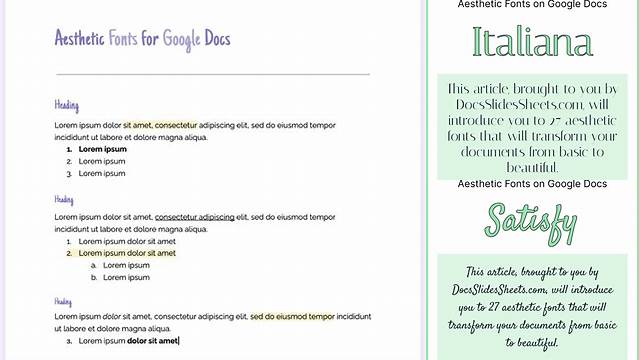
Aesthetic Fonts For Google Docs: A Comprehensive Guide
Hey guys! Ever feel like your Google Docs are looking a little...blah? You're not alone! Choosing the right font can make a huge difference in how your document looks and feels. Whether you're working on a resume, a school project, or just a fun creative writing piece, the font you use sets the tone. So, you're probably wondering, "What are some aesthetic fonts on Google Docs?" Well, you've come to the right place! Let's dive into a treasure trove of beautiful fonts that will transform your documents from drab to fab. We'll explore a wide range of options, from elegant serifs to modern sans-serifs, and even some fun display fonts to spice things up. Get ready to unleash your inner font enthusiast!
1. Understanding Aesthetic Fonts in Google Docs
When we talk about aesthetic fonts, we're really talking about fonts that have a certain visual appeal and can evoke a particular mood or feeling. These aren't your run-of-the-mill Times New Roman or Arial β although those fonts have their place, aesthetic fonts are about adding a touch of personality and style to your work. In Google Docs, aesthetic fonts can make your documents stand out, whether you're aiming for a professional, creative, or playful vibe. Think about it: the font you use can influence how your audience perceives your message. A handwritten-style font might be perfect for a friendly letter, while a sleek sans-serif might be better suited for a business report. So, how do you choose the right one? Well, let's explore the different categories of aesthetic fonts and how they can enhance your Google Docs. We'll look at everything from the classic serifs that exude elegance to the modern sans-serifs that scream simplicity and everything in between. Remember, the key is to find a font that not only looks good but also aligns with the purpose and tone of your document. Letβs start our journey into the world of aesthetic fonts and discover the perfect typefaces to make your Google Docs shine. The possibilities are endless, and the impact is significant. Choosing the right font is an art, and with a little guidance, you can become a master of this art in your own right.
2. Serif Fonts: Classic and Elegant Choices
Serif fonts are often described as classic and elegant, and for good reason! They have these little decorative strokes, called serifs, at the end of each letter, which gives them a sophisticated and traditional feel. Think of them as the black-tie attire of the font world. When you're looking for aesthetic fonts that convey authority, professionalism, or a touch of old-world charm, serif fonts are your go-to. In Google Docs, using a serif font can instantly elevate your document, making it look more polished and refined. But with so many serif fonts to choose from, how do you pick the right one? Some popular choices include Georgia, which is known for its readability, and Merriweather, which has a slightly more modern feel. Then there's Playfair Display, a beautiful serif that's perfect for headings and titles. Each serif font has its own personality, so itβs worth experimenting to find the one that best suits your needs. Remember, the goal is to choose a font that enhances your message, not distracts from it. When used thoughtfully, serif fonts can add a timeless elegance to your Google Docs, making them a pleasure to read and a statement of your attention to detail. Choosing between these aesthetic fonts can be tricky, but understanding the nuances of each will help you make the best decision.
3. Sans-Serif Fonts: Modern and Minimalist
If serif fonts are the classic choice, then sans-serif fonts are their modern, minimalist cousins. Sans-serif fonts, as the name suggests, don't have those little decorative strokes (serifs) at the end of the letters. This gives them a clean, contemporary look that's perfect for conveying a sense of simplicity and clarity. For those wondering, "What are some aesthetic fonts on Google Docs that are modern?" the answer lies heavily within the sans-serif family. These fonts are often used in websites and digital interfaces because they're highly readable on screens. In Google Docs, sans-serif fonts can be a great choice for everything from resumes to reports, especially if you want to project a forward-thinking, no-fuss image. Some popular sans-serif fonts available in Google Docs include Arial, Helvetica, and Open Sans. But if you're looking for something a little more unique, check out Montserrat, Lato, or Roboto β these fonts have a bit more personality while still maintaining that clean, modern aesthetic. The beauty of sans-serif fonts lies in their versatility. They work well in a variety of contexts and can be easily paired with other fonts. Whether you're aiming for a sleek, corporate look or a more casual, contemporary vibe, a well-chosen sans-serif font can help you achieve your desired aesthetic. These aesthetic fonts are an essential tool for creating visually appealing and readable documents.
4. Display Fonts: Creative and Eye-Catching
Now, let's talk about the fun stuff! Display fonts are the wildcards of the font world β they're designed to grab attention and make a statement. These fonts often have unique shapes, decorative elements, and a whole lot of personality. If you're looking to add some flair to your Google Docs, display fonts are the way to go. However, a word of caution: display fonts are best used sparingly. They're perfect for headings, titles, and short bursts of text, but they can be overwhelming if used for large blocks of body text. When it comes to answering the question, βWhat are some aesthetic fonts on Google Docs that are creative?β, display fonts are the stars of the show. Think of them as the sprinkles on your sundae β a little goes a long way! Google Docs has a surprisingly good selection of display fonts, from script fonts that mimic handwriting to bold, geometric fonts that demand attention. Some interesting options include Pacifico, a casual script font, and Lobster, a bold, retro-inspired font. For a more modern look, try Oswald or Bebas Neue. When choosing a display font, consider the overall tone of your document. Are you going for playful and whimsical, or bold and dramatic? The font you choose should reflect the message you're trying to convey. With the right display font, your Google Docs will be anything but boring. These aesthetic fonts offer a chance to truly express your creativity.
5. Script Fonts: Elegant and Personal Touches
For those seeking aesthetic fonts that exude elegance and a personal touch, script fonts are an excellent choice. These fonts mimic the fluidity of handwriting, adding a touch of sophistication and warmth to your Google Docs. Think of them as the handwritten note in a digital world. Script fonts are perfect for invitations, thank-you notes, and any document where you want to create a personal connection with your reader. However, like display fonts, script fonts should be used judiciously. They can be difficult to read in large blocks of text, so it's best to reserve them for headings, titles, or short phrases. Google Docs offers a variety of script fonts, each with its own unique personality. Some popular options include Dancing Script, a playful and whimsical font, and Great Vibes, a more formal and elegant script. For a modern twist, check out Pacifico or Lobster Two, which have a more casual feel. When choosing a script font, consider the occasion and the message you want to convey. A formal script might be perfect for a wedding invitation, while a more casual script could be ideal for a thank-you note to a friend. With the right script font, you can add a touch of personality and charm to your Google Docs, making them truly memorable. Answering, βWhat are some aesthetic fonts on Google Docs for a personal touch?β often leads to the beautiful world of script fonts.
6. Monospace Fonts: Technical and Uniform
Monospace fonts are a bit of a niche category, but they can be incredibly useful in certain situations. What sets monospace fonts apart is that each character takes up the same amount of horizontal space. This gives them a uniform, almost typewriter-like appearance. While they might not be the first choice for a visually stunning document, monospace fonts are ideal for displaying code, aligning columns of text, or creating a technical or retro vibe. When exploring, "What are some aesthetic fonts on Google Docs that offer a technical feel?" monospace options are worth considering. In Google Docs, some common monospace fonts include Courier New and Consolas. But if you're looking for something a little different, try Roboto Mono or Fira Mono, which have a more modern and readable design. Monospace fonts aren't for every project, but when you need that consistent, technical look, they're the perfect tool. Think of them as the workhorses of the font world β reliable, consistent, and perfect for specific tasks. These aesthetic fonts have a unique place in the design landscape.
7. Finding More Fonts in Google Docs
So, you've explored the basic font categories, but what if you're still looking for something more unique? The good news is that Google Docs has a hidden treasure trove of fonts just waiting to be discovered! To access these hidden gems, simply click on the font dropdown menu in Google Docs and select "More fonts." This will open a font selection window where you can browse hundreds of additional fonts, filter them by category (serif, sans-serif, display, etc.), and even search for specific fonts by name. This is where answering, βWhat are some aesthetic fonts on Google Docs that I havenβt seen before?β becomes exciting. This is a fantastic way to expand your font palette and find the perfect typeface for your project. The "More fonts" feature is like a secret door to a world of typographic possibilities. You can spend hours exploring different fonts, experimenting with combinations, and discovering hidden gems that you never knew existed. So, if you're feeling adventurous, dive in and see what you can find! This feature is a game-changer for anyone serious about typography in their documents. These additional aesthetic fonts can truly make your documents stand out.
8. Pairing Fonts for Visual Harmony
Choosing a single aesthetic font is important, but sometimes the real magic happens when you pair fonts together. Font pairing is the art of combining two or more fonts in a way that creates visual harmony and enhances the overall look of your document. Think of it as creating a symphony of typefaces, where each font plays its part in the overall composition. But how do you choose fonts that work well together? A good rule of thumb is to pair fonts that have contrasting characteristics. For example, you might pair a bold serif font for headings with a clean sans-serif font for body text. This creates a visual hierarchy and makes your document more readable. Answering, βWhat are some aesthetic fonts on Google Docs that pair well together?β is key to professional design. Another approach is to use fonts from the same font family but with different weights or styles. For example, you could use a light weight of a font for body text and a bold weight for headings. This creates a cohesive look while still providing visual contrast. Experimentation is key when it comes to font pairing. Try different combinations and see what works best for your project. There are also many online resources and tools that can help you find font pairings that are known to work well together. With a little practice, you'll be creating beautiful and harmonious font pairings in no time. These carefully chosen combinations of aesthetic fonts can elevate your design to a new level.
9. Using Fonts to Convey Different Moods
The aesthetic fonts you choose can have a powerful impact on the mood and tone of your document. Fonts aren't just about how text looks; they also communicate emotions and attitudes. Think about it: a playful, handwritten font might be perfect for a birthday card, but it would be completely inappropriate for a legal document. Understanding how fonts can convey different moods is crucial for effective communication. When considering, βWhat are some aesthetic fonts on Google Docs that evoke specific feelings?β, you're entering the realm of visual psychology. Serif fonts, with their classic and elegant appearance, often convey a sense of authority, tradition, and professionalism. They're a good choice for formal documents, academic papers, and anything where you want to project credibility. Sans-serif fonts, on the other hand, tend to feel more modern, clean, and minimalist. They're a great option for websites, resumes, and documents that need to feel contemporary and approachable. Display fonts, with their unique shapes and decorative elements, can convey a wide range of moods, from playful and whimsical to bold and dramatic. Script fonts, which mimic handwriting, add a personal and elegant touch. When choosing a font, consider the message you want to convey and the audience you're trying to reach. The right font can help you connect with your readers on an emotional level, making your message more impactful. Matching the mood is crucial when selecting aesthetic fonts.
10. Readability: The Key Factor in Font Choice
No matter how beautiful a font is, if it's not readable, it's not a good choice for your document. Readability is the most important factor to consider when selecting fonts, especially for body text. After all, you want your readers to be able to easily understand your message, not struggle to decipher your words. So, as you ask, βWhat are some aesthetic fonts on Google Docs that are also easy to read?β, remember that readability trumps all. A font's readability depends on several factors, including its size, spacing, and overall design. Fonts with clear, simple shapes and ample spacing between letters and words tend to be the most readable. Serif fonts are often considered more readable for long blocks of text because the serifs help guide the eye along the lines. However, some sans-serif fonts are also highly readable, especially those designed specifically for on-screen reading. Display fonts and script fonts, while visually appealing, are generally less readable than serif and sans-serif fonts. That's why they're best reserved for headings, titles, and short bursts of text. When in doubt, choose a font that's known for its readability, such as Arial, Times New Roman, Open Sans, or Lato. Your readers will thank you for it! Prioritizing readability ensures your chosen aesthetic fonts are functional as well as beautiful.
11. Font Size and Spacing for Optimal Viewing
Choosing the right aesthetic font is just the first step; you also need to consider the font size and spacing to ensure optimal viewing. Even the most beautiful font can become illegible if it's too small or too cramped. Font size is measured in points (pt), and the ideal font size for body text is typically between 10 and 12 points. However, this can vary depending on the font itself and the overall design of your document. When asking, βWhat are some aesthetic fonts on Google Docs that look good in various sizes?β, youβre touching on an important aspect of typography. Headings and titles should be larger than body text to create a visual hierarchy. A good rule of thumb is to make your headings 14 to 18 points and your main title even larger, perhaps 24 points or more. Spacing is just as important as font size. There are two types of spacing to consider: line spacing (the space between lines of text) and letter spacing (the space between individual letters). Adequate line spacing makes text easier to read by preventing the lines from feeling too crowded. A line spacing of 1.15 or 1.5 is generally recommended for body text. Letter spacing can be adjusted to improve the overall appearance of a font. Sometimes, increasing the letter spacing slightly can make a font feel more airy and readable. Experiment with different font sizes and spacing settings to find what works best for your document. These adjustments are key to enhancing the visual impact of aesthetic fonts.
12. Color Considerations with Aesthetic Fonts
While the shape and style of a font are crucial, color plays a significant role in how it's perceived. The color you choose for your text can affect readability, contrast, and the overall aesthetic of your document. So, when you think about, βWhat are some aesthetic fonts on Google Docs and how should I color them?β, you're delving into the world of color theory in typography. The most common choice for body text is black, as it provides the highest contrast against a white background. However, don't be afraid to experiment with other colors, especially for headings and titles. Dark shades of gray, blue, or green can add a touch of sophistication without sacrificing readability. When choosing colors, consider the overall tone of your document. Warm colors like red, orange, and yellow can evoke feelings of energy and excitement, while cool colors like blue, green, and purple tend to feel more calming and professional. Contrast is key when it comes to color. Make sure there's enough contrast between your text color and your background color to ensure readability. Light text on a dark background or dark text on a light background generally works well. Avoid using colors that are too similar, as this can make your text difficult to read. Color should enhance, not detract from, the aesthetic fonts you've chosen.
13. Bold, Italics, and Underlines: Strategic Font Emphasis
Bold, italics, and underlines are powerful tools for adding emphasis to your text and creating visual interest. However, they should be used strategically and sparingly. Overusing these formatting options can make your document look cluttered and unprofessional. So, in considering, βWhat are some aesthetic fonts on Google Docs that work well with emphasis?β, think about how these tools can complement your choices. Bold is great for highlighting key words, phrases, or headings. It adds weight and prominence to your text, drawing the reader's eye to the most important information. Italics are often used for emphasis, but they can also be used for citations, foreign words, or book titles. Italics have a softer, more subtle effect than bold, but they can still be effective for adding emphasis. Underlines are the most controversial of these formatting options. While they can be used for emphasis, they're often associated with hyperlinks and can make your text look dated. If you're going to use underlines, do so sparingly and consider using them in conjunction with other formatting options, such as bold or italics. The key to using bold, italics, and underlines effectively is to use them consistently and purposefully. Think about how these options can enhance your message and guide your reader through your document. When used thoughtfully, these formatting tools can elevate the impact of your aesthetic fonts.
14. Kerning and Tracking: Fine-Tuning Font Appearance
Kerning and tracking are two advanced typographic techniques that can help you fine-tune the appearance of your fonts and improve readability. Kerning refers to the spacing between individual letters, while tracking refers to the overall spacing between all the letters in a word or line of text. These subtle adjustments can make a big difference in the visual appeal of your document. When exploring, βWhat are some aesthetic fonts on Google Docs and how can I perfect their spacing?β, you're delving into the nuances of typography. Kerning is particularly important for fonts with unusual shapes or letter combinations. By adjusting the kerning, you can create a more balanced and harmonious appearance. For example, you might need to reduce the space between a capital "W" and a lowercase "a" to prevent them from looking too far apart. Tracking is useful for adjusting the overall density of text. If your text looks too crowded, you can increase the tracking to add more space between the letters. Conversely, if your text looks too sparse, you can decrease the tracking to make it feel more compact. Google Docs doesn't offer advanced kerning and tracking controls, but you can still make some basic adjustments by using the "Custom spacing" option in the font menu. Experiment with different kerning and tracking settings to see how they affect the appearance of your aesthetic fonts. These fine-tuning techniques are the secrets to truly polished typography.
15. Avoiding Common Font Mistakes
Choosing the right aesthetic fonts can be a game-changer for your Google Docs, but it's also easy to make mistakes that detract from your message. Let's talk about some common font faux pas and how to avoid them. One of the biggest mistakes is using too many fonts in a single document. Sticking to two or three fonts is generally a good rule of thumb. More than that can make your document look cluttered and unprofessional. As you consider, βWhat are some aesthetic fonts on Google Docs that I can combine effectively?β, simplicity is key. Another common mistake is choosing fonts that are difficult to read. Fancy fonts might look cool, but if your readers can't easily decipher your words, they'll quickly lose interest. Readability should always be a top priority. Overusing bold, italics, and underlines is another pitfall. These formatting options are great for emphasis, but too much emphasis is no emphasis at all. Use them sparingly and purposefully. Inconsistent font sizes and styles can also make your document look unprofessional. Make sure your headings, subheadings, and body text have consistent formatting throughout. Finally, avoid using clichΓ© fonts like Comic Sans or Papyrus unless you have a very specific reason to do so. These fonts are widely considered unprofessional and should be avoided in most contexts. By avoiding these common mistakes, you can ensure that your chosen aesthetic fonts enhance your document, rather than detracting from it.
16. Aesthetic Fonts for Resumes
When it comes to resumes, choosing the right aesthetic fonts can make a significant difference in how you're perceived by potential employers. Your resume is your first impression, so you want it to look professional, polished, and easy to read. So, when thinking, βWhat are some aesthetic fonts on Google Docs for a resume?β, think about striking a balance between style and readability. The best fonts for resumes are typically clean and professional, with a focus on readability. Serif fonts like Georgia, Garamond, and Times New Roman are classic choices that convey a sense of authority and tradition. Sans-serif fonts like Arial, Helvetica, and Calibri are also good options, as they offer a more modern and minimalist look. Avoid using overly fancy or decorative fonts, as these can be difficult to read and may make your resume look unprofessional. Stick to one or two fonts at most, and use them consistently throughout your resume. Pay attention to font size and spacing as well. Your body text should be large enough to read easily (10-12 points is a good range), and your headings should be slightly larger to create a visual hierarchy. With the right aesthetic fonts, your resume will stand out for all the right reasons.
17. Aesthetic Fonts for Presentations
Presentations are all about visual communication, so choosing the right aesthetic fonts is crucial for keeping your audience engaged. You want fonts that are clear, readable, and visually appealing, both on screen and in print. So, as you ponder, βWhat are some aesthetic fonts on Google Docs for a presentation?β, consider the dynamics of a visual medium. The fonts you use for your presentation should be large enough to read easily from a distance. A good rule of thumb is to use a minimum font size of 24 points for body text and 36 points or larger for headings. Sans-serif fonts like Arial, Helvetica, and Open Sans are generally a good choice for presentations, as they're highly readable on screens. Serif fonts can also work well, but they may not be as clear at smaller sizes. Limit yourself to two or three fonts at most, and use them consistently throughout your presentation. Consider using different font weights (bold, regular, light) to create visual interest and emphasize key points. Color is also important in presentations. Choose colors that contrast well with your background and that are easy on the eyes. The right aesthetic fonts will make your presentation visually compelling and easy to follow.
18. Aesthetic Fonts for Reports
When creating reports, the goal is to present information clearly and professionally. The aesthetic fonts you choose should reflect this goal, prioritizing readability and a clean, uncluttered look. As you deliberate, βWhat are some aesthetic fonts on Google Docs for a report?β, think about conveying professionalism and clarity. Serif fonts like Times New Roman, Georgia, and Cambria are often a good choice for reports, as they convey a sense of authority and tradition. Sans-serif fonts like Arial, Helvetica, and Calibri can also work well, especially for shorter reports or reports with a more modern feel. Stick to one or two fonts at most, and use them consistently throughout your report. Use different font weights (bold, regular, light) and sizes to create a visual hierarchy and guide your reader through the information. Pay attention to spacing as well. Adequate line spacing and paragraph spacing will make your report easier to read. Avoid using overly fancy or decorative fonts, as these can distract from the content and make your report look unprofessional. With the right aesthetic fonts, your report will convey a sense of competence and attention to detail.
19. Aesthetic Fonts for Creative Writing
Creative writing offers a unique opportunity to experiment with aesthetic fonts and express your personal style. Unlike more formal documents, creative writing pieces can benefit from fonts that add personality and flair. So, when considering, βWhat are some aesthetic fonts on Google Docs for creative writing?β, think about fonts that enhance the tone and mood of your piece. Display fonts and script fonts can be a great choice for creative writing, especially for titles and headings. However, it's still important to prioritize readability, especially for longer pieces of writing. A good approach is to use a more decorative font for headings and a more readable font for body text. Consider the tone of your writing when choosing fonts. A playful, whimsical story might benefit from a script font or a display font with a handwritten feel. A more serious or dramatic story might call for a classic serif font or a bold sans-serif font. Don't be afraid to experiment with different fonts and combinations, but always keep readability in mind. The right aesthetic fonts can help you create a truly immersive reading experience.
20. Aesthetic Fonts for Invitations
Invitations are all about setting the tone for an event, so choosing the right aesthetic fonts is essential for conveying the desired mood. Whether you're planning a formal wedding or a casual backyard barbecue, the fonts you use should reflect the style of your event. So, when you ask, βWhat are some aesthetic fonts on Google Docs for invitations?β, youβre really asking how to communicate style and sophistication. For formal events like weddings, elegant serif fonts and script fonts are often a good choice. These fonts convey a sense of sophistication and tradition. Consider using a calligraphic script font for the names of the hosts and the date and time of the event, and a more readable serif font for the other details. For more casual events, you have more leeway to experiment with different fonts. Sans-serif fonts and display fonts can work well, depending on the style of your event. A handwritten-style font can be a great choice for a casual party invitation, while a bold sans-serif font might be appropriate for a modern event. Color is also an important consideration for invitations. Choose colors that complement your fonts and that reflect the overall tone of your event. With the right aesthetic fonts and colors, your invitations will make a lasting impression.
21. Matching Fonts to Your Personal Brand
In today's digital age, having a strong personal brand is more important than ever. And one often overlooked aspect of personal branding is your choice of aesthetic fonts. The fonts you use in your online presence, from your website to your social media profiles, can convey a lot about your personality and values. So, when contemplating, βWhat are some aesthetic fonts on Google Docs that align with my brand?β, think about the image you want to project. If you want to be seen as professional and authoritative, classic serif fonts like Georgia or Garamond might be a good choice. If you prefer a more modern and minimalist look, sans-serif fonts like Open Sans or Lato could be a better fit. If you're in a creative field, you might want to experiment with display fonts or script fonts to add personality and flair to your brand. The key is to choose fonts that are consistent with your overall brand message. Think about the colors, imagery, and tone of voice you use in your branding, and choose fonts that complement these elements. Your aesthetic fonts are a visual extension of your personal brand.
22. Finding Font Inspiration and Resources
Feeling overwhelmed by the sheer number of aesthetic fonts available? Don't worry, there are plenty of resources out there to help you find inspiration and choose the perfect fonts for your projects. Asking, βWhat are some aesthetic fonts on Google Docs and where can I find more ideas?β is a great starting point. One of the best ways to find font inspiration is to browse online font libraries like Google Fonts, Adobe Fonts, and Font Squirrel. These websites offer a vast collection of fonts, many of which are free to use. You can also find font inspiration on design blogs and websites like Dribbble and Behance. These sites showcase the work of talented designers and can give you ideas for font pairings and typography styles. Social media platforms like Pinterest and Instagram are also great sources of font inspiration. Search for hashtags like #typography, #fontpairing, and #graphicdesign to discover new and interesting fonts. If you're looking for specific font recommendations, there are many online articles and guides that can help you choose the right fonts for different purposes. The world of typography is vast and exciting, so don't be afraid to explore and experiment. With a little research and creativity, you can find the perfect aesthetic fonts for any project.
23. The Psychology of Fonts: How Typefaces Influence Perception
Did you know that the aesthetic fonts you choose can actually influence how people perceive your message? It's true! Fonts have a psychological impact, and understanding this can help you make more informed decisions about your typography. So, as you wonder, βWhat are some aesthetic fonts on Google Docs and how will they make people feel?β, youβre tapping into the fascinating field of font psychology. Serif fonts, with their traditional and formal appearance, often convey a sense of authority, credibility, and trustworthiness. They're a good choice for projects where you want to project professionalism and expertise. Sans-serif fonts, on the other hand, tend to feel more modern, clean, and approachable. They're a great option for projects that need to feel contemporary and user-friendly. Display fonts and script fonts can evoke a wide range of emotions, depending on their style. Playful fonts can create a sense of fun and whimsy, while elegant fonts can convey sophistication and luxury. The key is to choose fonts that align with the message you want to convey and the emotions you want to evoke. By understanding the psychology of fonts, you can harness their power to create more impactful and engaging communications. The impact of aesthetic fonts extends beyond mere aesthetics.
24. Exploring Google Fonts: A Treasure Trove of Options
When it comes to finding aesthetic fonts for your Google Docs, Google Fonts is an invaluable resource. This free online library offers hundreds of high-quality fonts that you can use in your projects, and they're all easily accessible within Google Docs. Considering, βWhat are some aesthetic fonts on Google Docs that are readily available?β often leads straight to Google Fonts. Google Fonts includes a wide range of font styles, from classic serifs and sans-serifs to more unique display fonts and script fonts. You can browse fonts by category, popularity, or even specific characteristics like thickness or slant. One of the best features of Google Fonts is its font pairing tool. This tool suggests font pairings that work well together, making it easy to create visually harmonious designs. Google Fonts also provides detailed information about each font, including its history, usage examples, and technical specifications. This can help you make informed decisions about which fonts to use in your projects. To use Google Fonts in Google Docs, simply click on the font dropdown menu and select "More fonts." This will open the Google Fonts library, where you can browse and add fonts to your Google Docs account. Google Fonts is a fantastic resource for anyone looking to elevate their typography game. The vast selection of aesthetic fonts ensures there's something for every project.
25. Font Licensing: Understanding Usage Rights
Before you start using aesthetic fonts in your projects, it's important to understand font licensing. Font licenses dictate how you're allowed to use a particular font, including whether you can use it for commercial purposes, embed it in documents, or modify it. So, when pondering, βWhat are some aesthetic fonts on Google Docs and what are the rules for using them?β, youβre addressing an important legal consideration. Most fonts are protected by copyright, and using a font without the proper license can lead to legal trouble. Fortunately, many font foundries offer free licenses for personal and commercial use. Google Fonts, for example, uses the Open Font License (OFL), which allows you to use, modify, and distribute fonts freely. However, some fonts have more restrictive licenses. These licenses may limit how you can use the font, such as prohibiting commercial use or requiring you to purchase a license for each user. It's important to read the license agreement carefully before using a font, especially if you plan to use it for commercial purposes. If you're unsure about the licensing terms for a particular font, it's always best to err on the side of caution and contact the font foundry for clarification. Understanding font licensing is crucial for ensuring you're using aesthetic fonts legally and ethically.
26. Creating Font Combinations That Work
As we've discussed, choosing the right aesthetic fonts is only part of the equation. You also need to know how to combine fonts effectively to create visually appealing designs. So, when considering, βWhat are some aesthetic fonts on Google Docs that look great together?β, youβre diving into the art of font pairing. One of the most fundamental principles of font pairing is to choose fonts with contrasting characteristics. For example, pairing a serif font with a sans-serif font can create a dynamic and balanced look. The serif font provides a touch of elegance and tradition, while the sans-serif font adds a modern and clean feel. Another approach is to use fonts from the same font family but with different weights or styles. For example, you could use a bold weight for headings and a regular weight for body text. This creates a cohesive look while still providing visual contrast. When pairing fonts, it's important to consider the overall tone and message of your design. If you're creating a formal document, you'll want to choose fonts that convey professionalism and authority. If you're creating a more casual design, you can experiment with more playful and expressive fonts. There are many online resources and tools that can help you find font pairings that work well together. Don't be afraid to experiment and try different combinations until you find what you like best. Mastering font combinations is key to using aesthetic fonts effectively.
27. How to Embed Fonts in Google Docs
One of the great things about Google Docs is that it makes it easy to use a wide variety of aesthetic fonts in your documents. Google Docs comes with a built-in library of fonts, and you can also add fonts from Google Fonts, as we discussed earlier. But what about sharing your document with someone who doesn't have the same fonts installed on their computer? That's where font embedding comes in. Asking, βWhat are some aesthetic fonts on Google Docs and how can I make sure everyone sees them?β highlights the importance of font embedding. Font embedding is the process of including the font files within your document, so that the fonts will display correctly even if the recipient doesn't have them installed. Google Docs automatically embeds fonts in your documents, so you don't have to worry about this step. When you share your document, the recipient will see the fonts you used, regardless of their own font settings. This ensures that your document will look exactly as you intended, no matter who's viewing it. Font embedding is a crucial feature for ensuring consistency and professionalism in your documents. With this automatic embedding, the impact of your chosen aesthetic fonts is preserved.
28. Customizing Default Fonts in Google Docs
Do you have a go-to set of aesthetic fonts that you use for all your Google Docs? If so, you might be interested in customizing the default fonts in Google Docs. This can save you time and effort by setting your preferred fonts as the default for all new documents. So, when pondering, βWhat are some aesthetic fonts on Google Docs that I can set as my standard?β, you're thinking about efficiency and personal style. To customize the default fonts in Google Docs, first open a new document. Then, click on the "Format" menu and select "Paragraph styles." In the Paragraph styles menu, you can customize the default font for different elements of your document, such as the normal text, headings, and titles. Simply select the element you want to customize, choose your preferred font, size, and style, and then click "Apply." You can also save your customized styles as a template, so you can easily reuse them in future documents. Customizing the default fonts in Google Docs is a great way to personalize your writing experience and ensure consistency across all your documents. These personal touches with aesthetic fonts can make a big difference.
29. Font Trends: Staying Current with Typeface Styles
The world of typography is constantly evolving, with new aesthetic fonts and styles emerging all the time. Staying current with font trends can help you keep your designs fresh and relevant. So, when considering, βWhat are some aesthetic fonts on Google Docs that are popular right now?β, youβre engaging with the dynamic nature of design. One of the biggest font trends in recent years has been the rise of geometric sans-serif fonts. These fonts have clean lines and simple shapes, giving them a modern and minimalist look. Another popular trend is the use of variable fonts. Variable fonts allow you to adjust various characteristics of a font, such as its weight, width, and slant, giving you greater flexibility and control over your typography. Vintage-inspired fonts are also making a comeback, with designers drawing inspiration from typefaces of the past. These fonts can add a touch of nostalgia and personality to your designs. To stay up-to-date on font trends, follow design blogs and websites, attend design conferences, and connect with other designers online. The world of aesthetic fonts is constantly changing, so continuous learning is key.
30. The Future of Fonts in Google Docs
As technology continues to evolve, so will the capabilities of Google Docs and its handling of aesthetic fonts. It's exciting to think about what the future holds for typography in this popular word processing platform. When we ask, βWhat are some aesthetic fonts on Google Docs that we might see in the future?β, we're speculating on the cutting edge of design. One potential development is the integration of more advanced font features, such as OpenType features and variable fonts. This would give users greater control over their typography and allow them to create more sophisticated designs. We might also see Google Docs expand its font library even further, adding more unique and diverse typefaces to its collection. Artificial intelligence could also play a role in the future of fonts in Google Docs. AI could be used to suggest font pairings, optimize font sizes and spacing, and even generate custom fonts based on user preferences. The future of fonts in Google Docs is bright, and we can expect to see even more exciting developments in the years to come. The evolution of aesthetic fonts in digital platforms like Google Docs promises to be a fascinating journey.